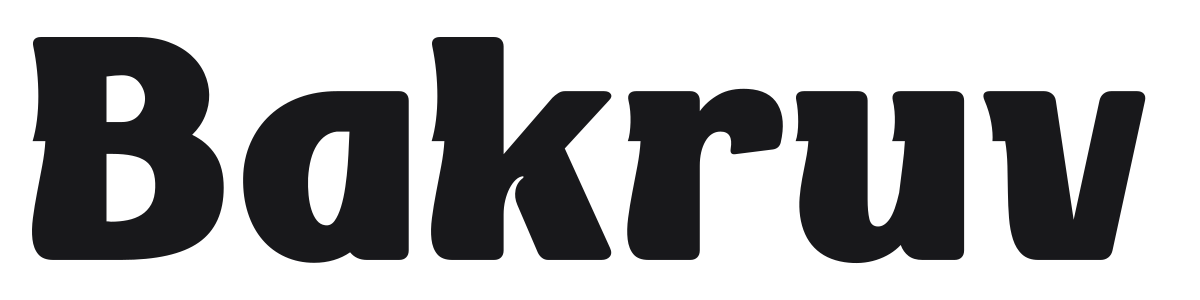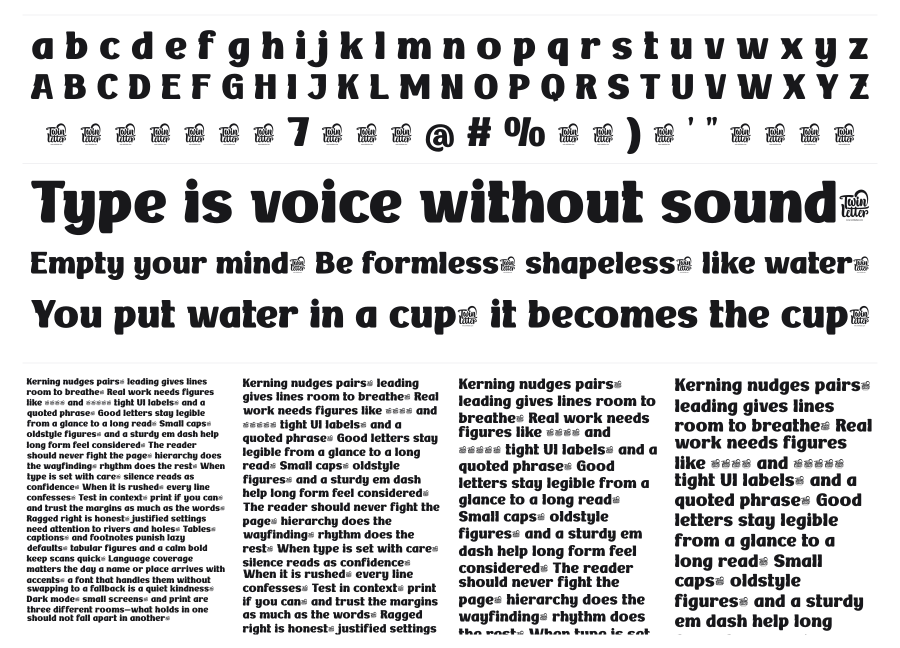
Bakruv
Bakruv is a heavy bold slab serif with rounded terminals and a warm, confident mass that punches at large sizes. Its near-monoweight strokes and chunky slabs sit in a sweet spot between modernist structure and approachable friendliness. Strong for headlines, logos, and any branding that needs weight without aggression.